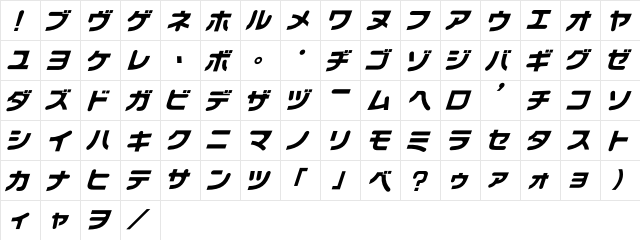
Chibacity Regular Font Preview
Chibacity Regular
Design Context for Chibacity Typeface
Chibacity is a composed and adaptable typeface that performs quietly and consistently across a wide range of design contexts.